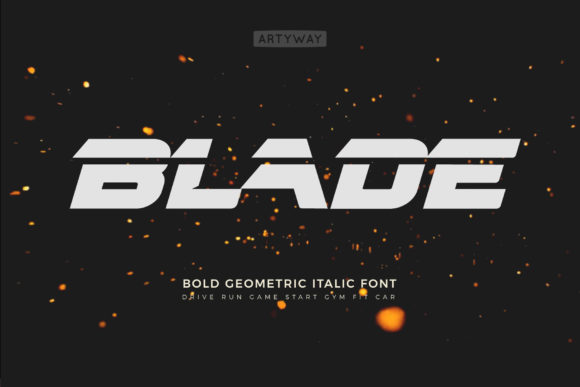
Welcome to the world of Blade Font, the revolutionary display font that will transform your designs with its bold and thick lettered style. Crafted by the visionary artists at Arway, Blade Font is a masterpiece that embodies strength, velocity, and relentless power—all within the strokes of its characters.
Immerse yourself in a realm where imagination reigns supreme. With Blade Font, you can conjure designs that evoke the roar of engines, the clash of swords, and the grandeur of empires. Whether you're creating posters for adrenaline-fueled events, designing logos that command attention, or crafting digital masterpieces that leave viewers in awe, Blade Font is your weapon of choice.
Let your creativity soar as you explore the limitless possibilities that Blade Font presents. Unleash your passion for gaming and design by incorporating this font into your projects. Enchant your audience with promotional materials that exude energy and excitement, or craft game titles and headlines that demand attention. The possibilities are as vast as your imagination.
With Blade Font, you're not just downloading a font; you're unlocking an arsenal of visual power. It's the perfect font for capturing the essence of action, adventure, and the unyielding spirit of human endeavor. From creating merchandise that ignites passion to designing interfaces that captivate players, Blade Font is your trusted companion in the realm of digital art.
Join the ranks of creatives who have discovered the transformative power of Blade Font. Embrace its bold presence and let your designs take center stage. With Blade Font, you're not just creating designs—you're forging legends.